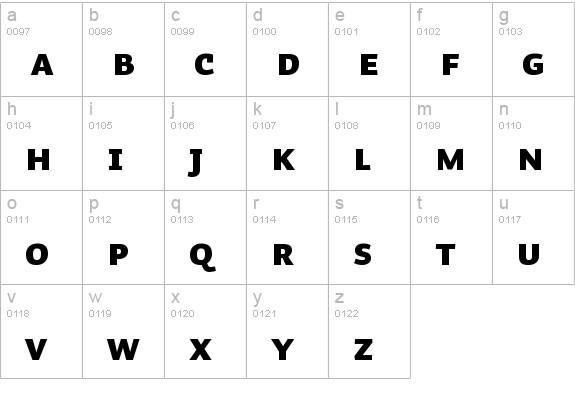
Auto 3 Black SmCp is a maximum-weight, dramatic variant in the Auto typeface family \xE2\x80\x94 well suited to maximum-impact headlines, posters, and packaging.
Introducing Auto 3 Black SmCp font, a sleek and modern typeface that exudes sophistication and style. With its bold and striking appearance, this font is perfect for creating eye-catching designs that demand attention. The Auto 3 Black SmCp font features clean lines and sharp edges, making it ideal for a wide range of design projects. Best of all, this font is available for free download at FontsMarket.com. Whether you're working on a branding project, advertising campaign, or any other design endeavor, Auto 3 Black SmCp font is sure to elevate your work to the next level. Don't miss out on the opportunity to add this versatile and dynamic font to your collection today.